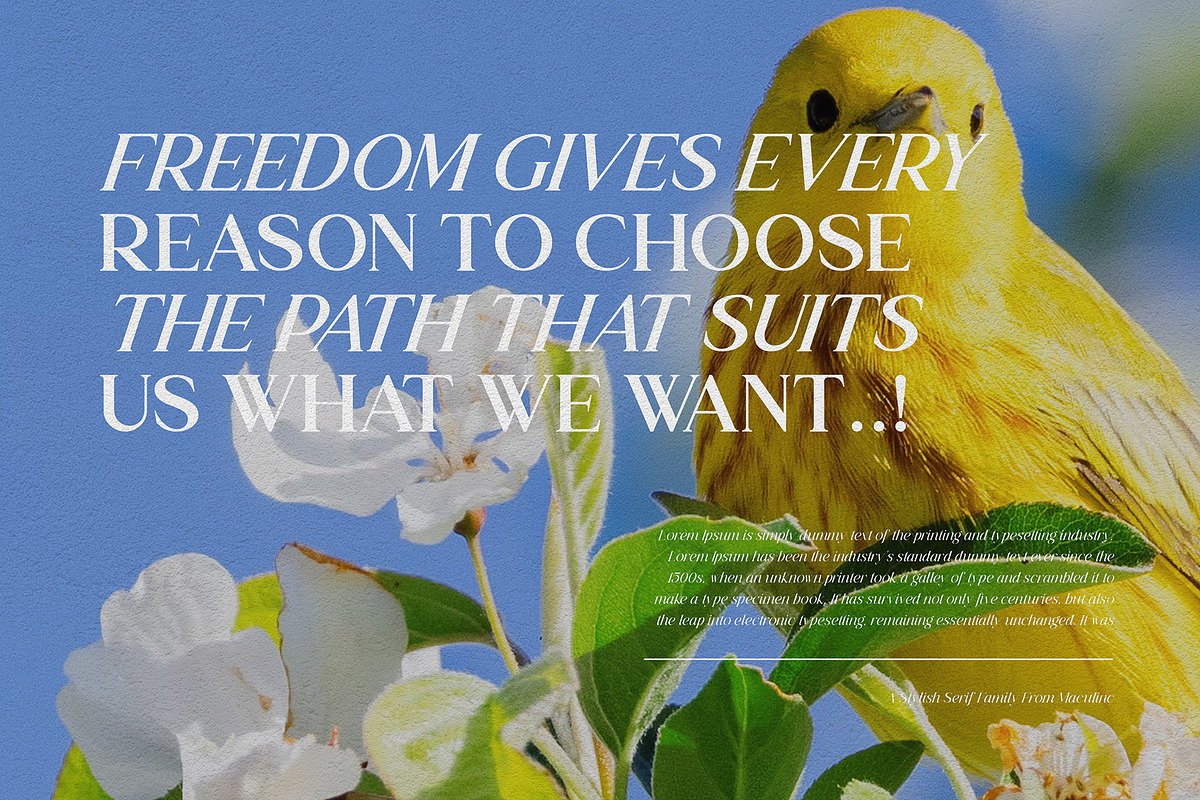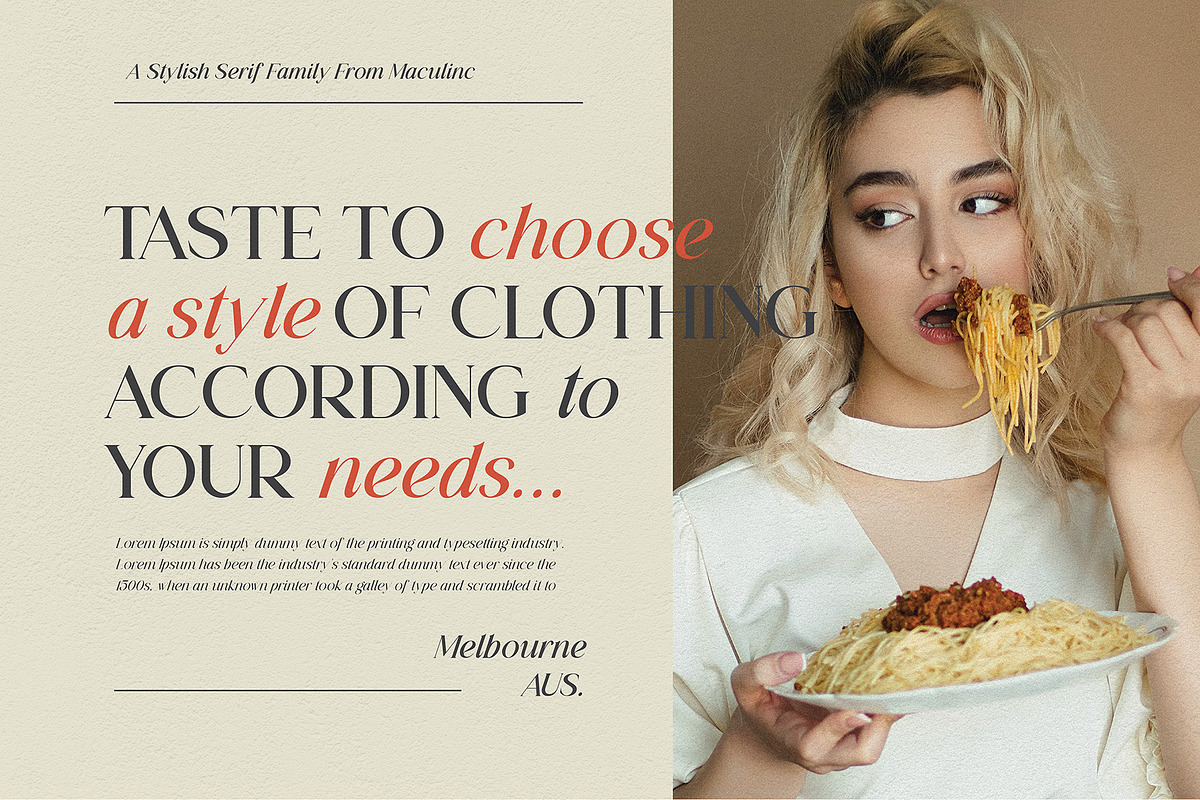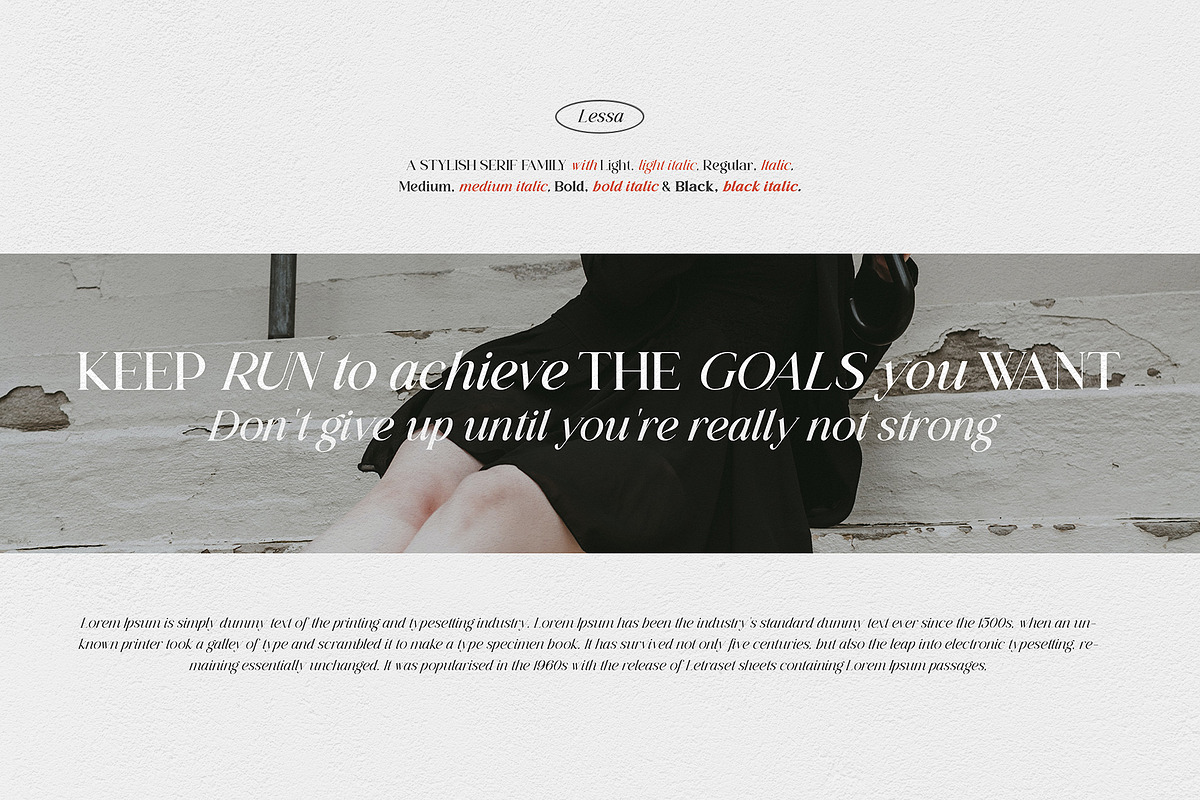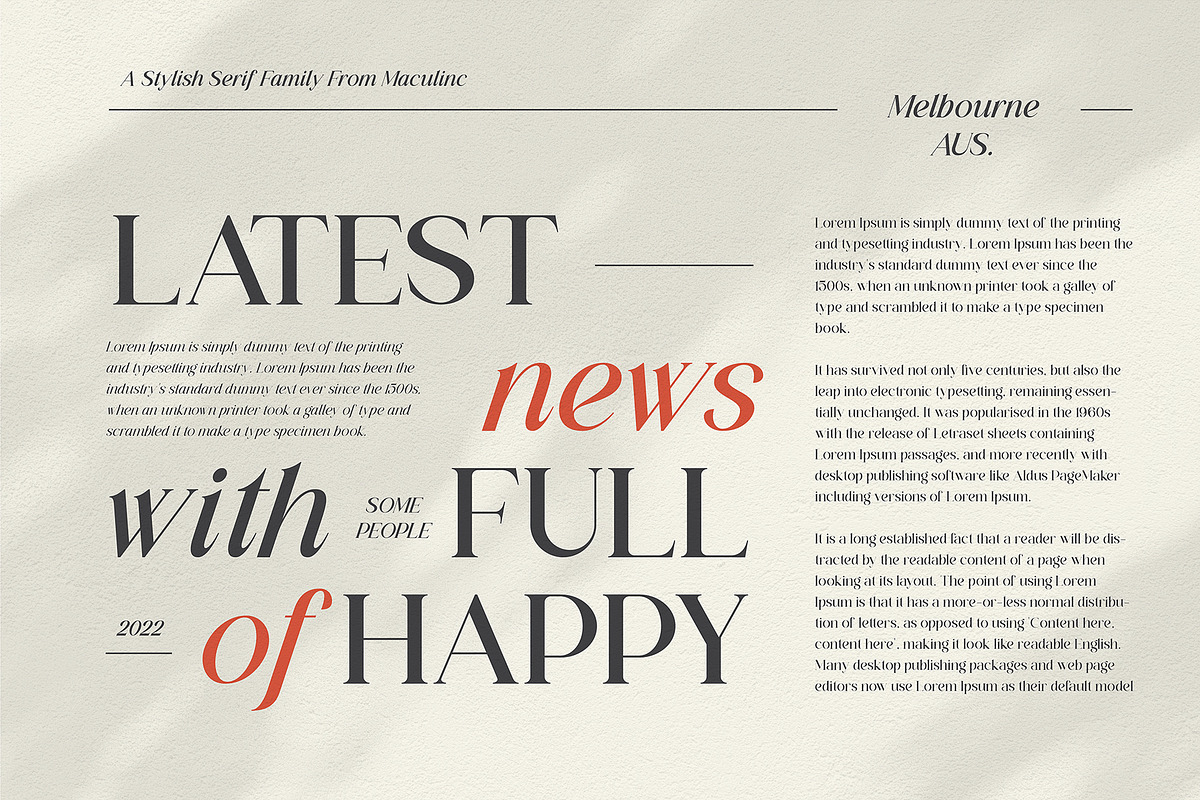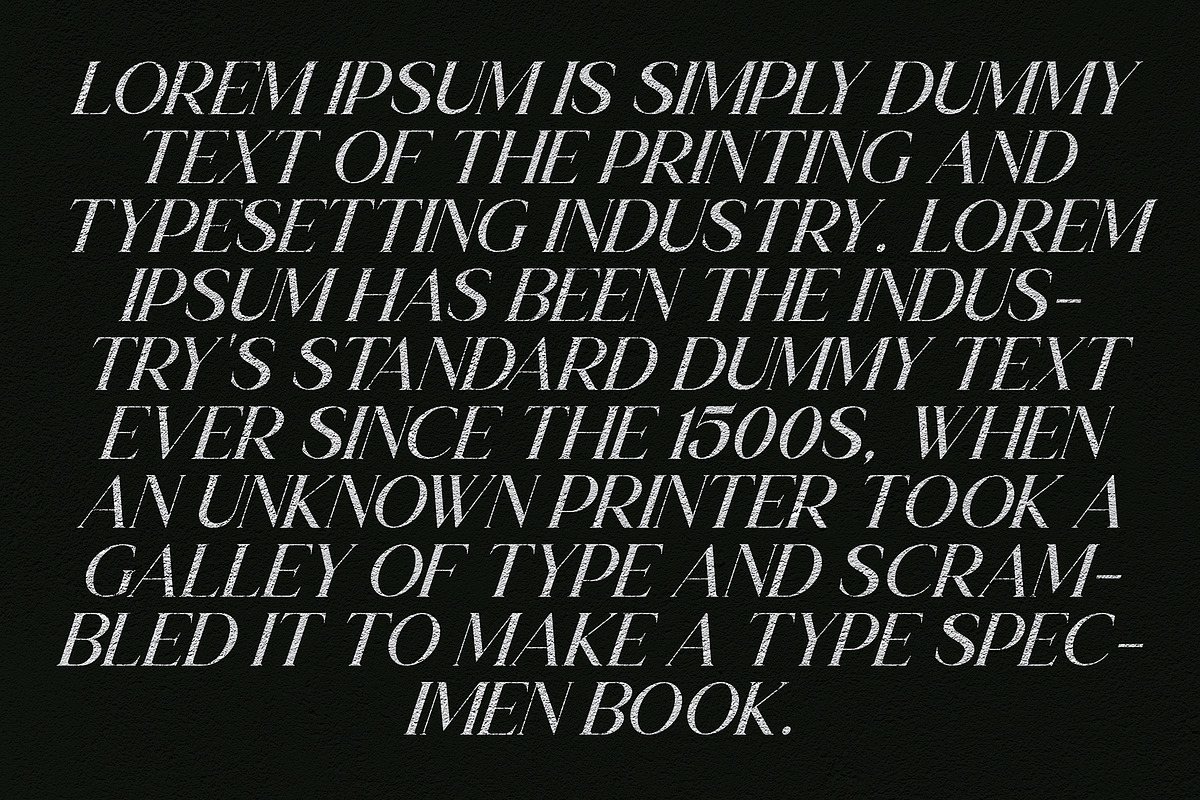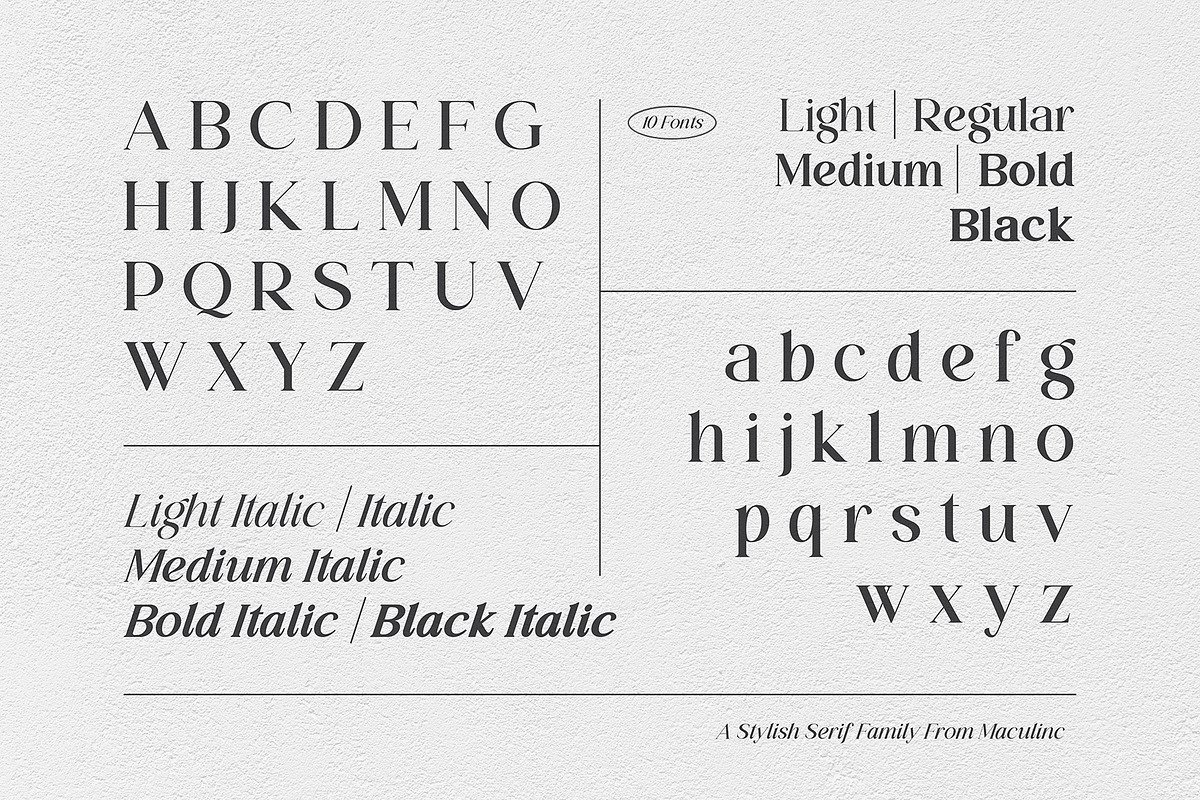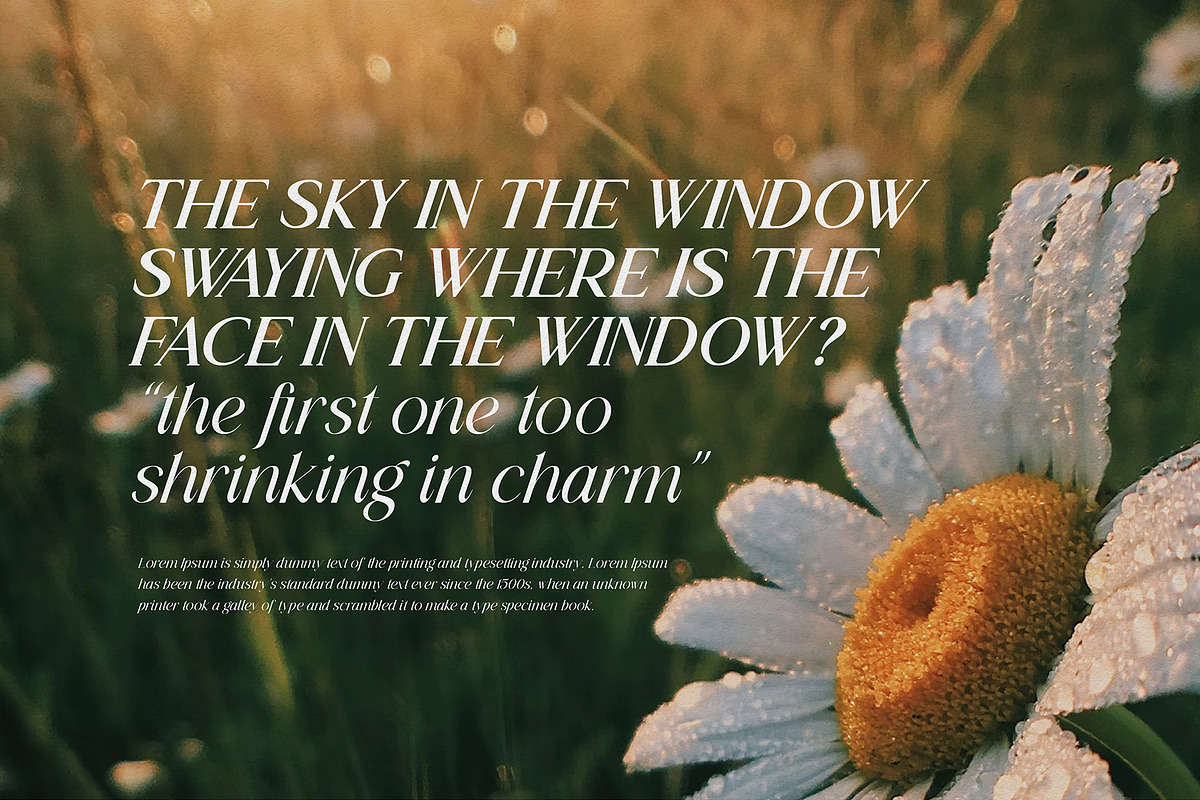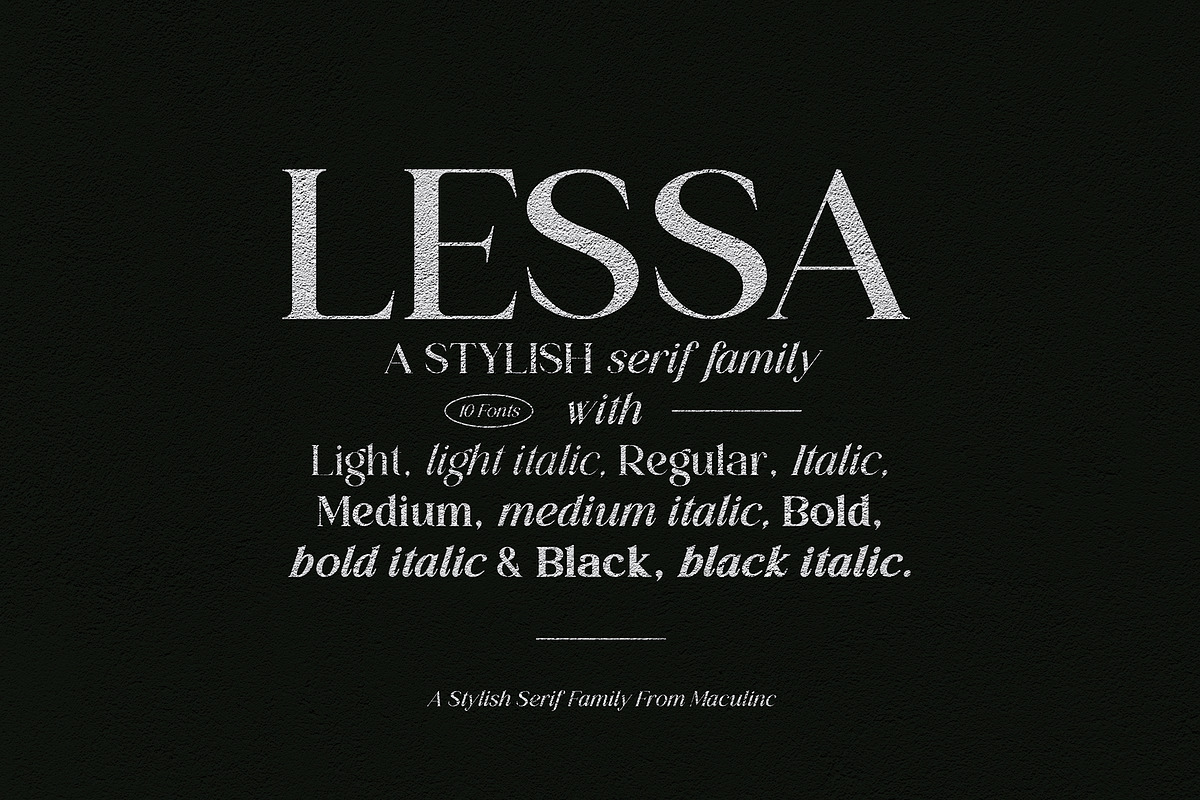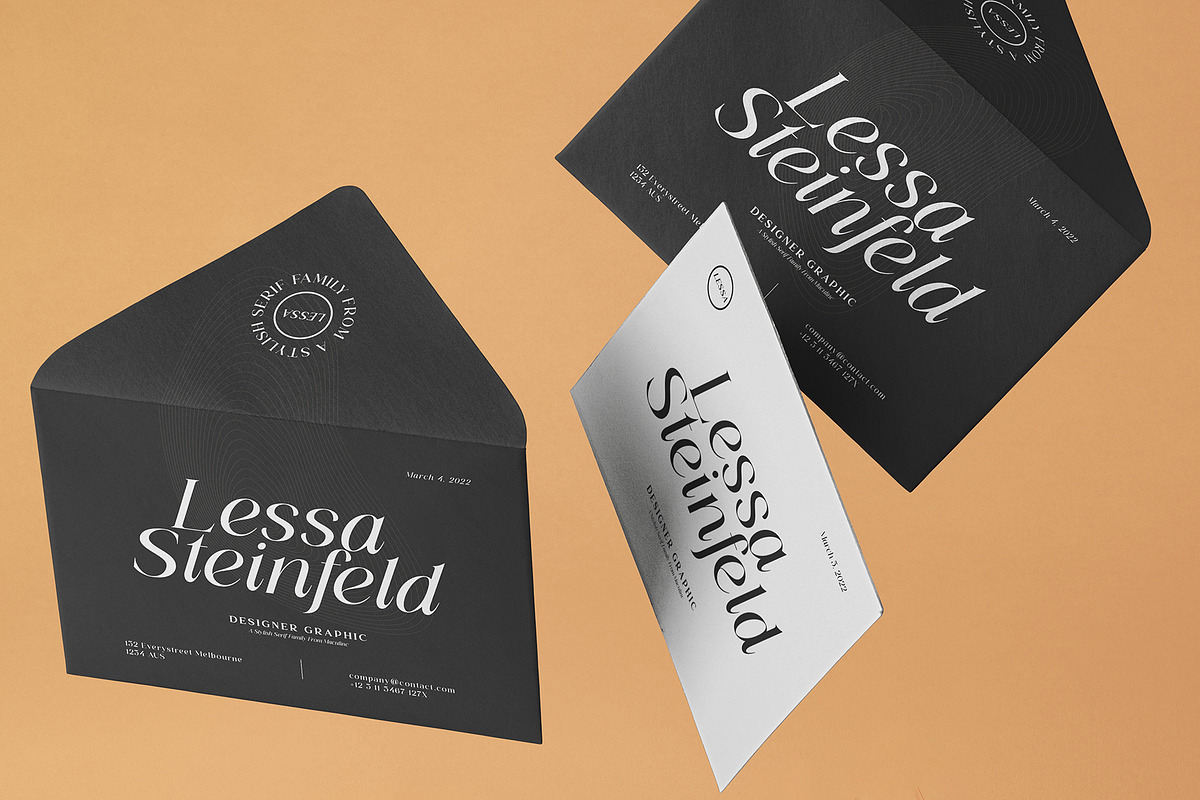
Lessa - Serif Font (10 Fonts)
Lessa is an elegant classic serif font family consisting of simple style serif fonts with a vintage look, with appropriate cursive calligraphy italics based on a number of humanist italic scripts, perfect for creating templates, posters, brochures, logos and more.
This font consists of upright and italic fonts (10 in total) all of which have the same number in each letter, Lessa is equipped with multi-languages and is supported by various languages from various countries.